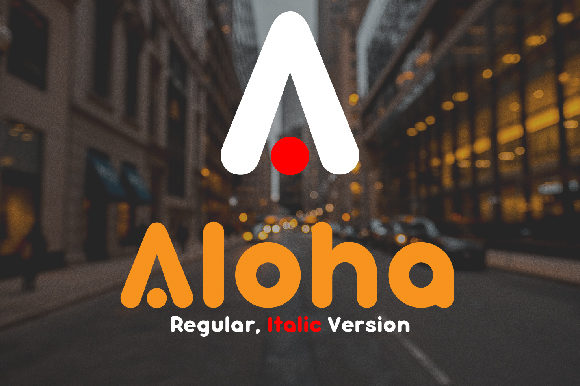
The Aloha Font: A Designer’s New Best Friend
I’ll never forget the time I was working on a project for a client who wanted a bold, eye-catching font to represent their brand. I spent hours scouring the internet for the perfect one, but nothing seemed quite right. That was until I stumbled upon the Aloha font. This highly legible sans serif font has been a game-changer for me, and I’m excited to share its awesomeness with you! ✨
- ✨ Legibility: The Aloha font is incredibly easy to read, making it perfect for body text, headings, and even titles.
- ✅ Versatility: Its striking style works well for logos, slogans, newspapers, magazines, books, apparel, web, and corporate use.
- 💡 Creativity: The font’s unique features, such as OpenType and stylistic alternates, offer endless creative possibilities.
While the Aloha font is amazing, there are a few things to keep in mind: 🤔
- ⚠️ Limited language support: The font may not support all languages, so be sure to check the character set before using it.
- ⚠️ Glyph limitations: Some users have reported issues with certain glyphs not displaying correctly.
The Aloha font was designed with inspiration from traditional Hawaiian typography and a dash of modern flair. Its creator aimed to craft a font that was both legible and visually striking, perfect for a wide range of design applications.
Q: What is the Aloha font?
A: The Aloha font is a highly legible sans serif font designed for a variety of uses, from logos and slogans to body text and headings.